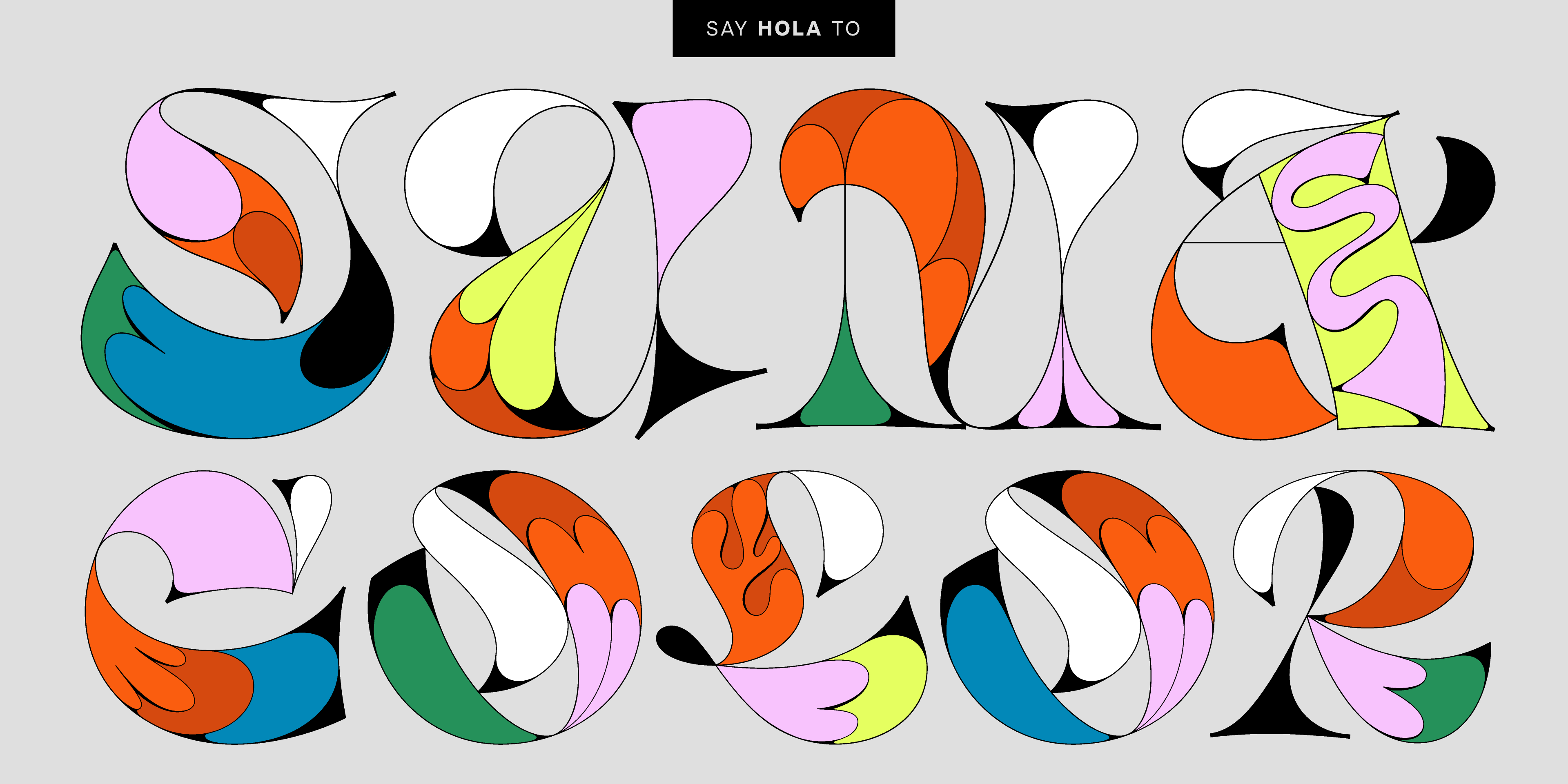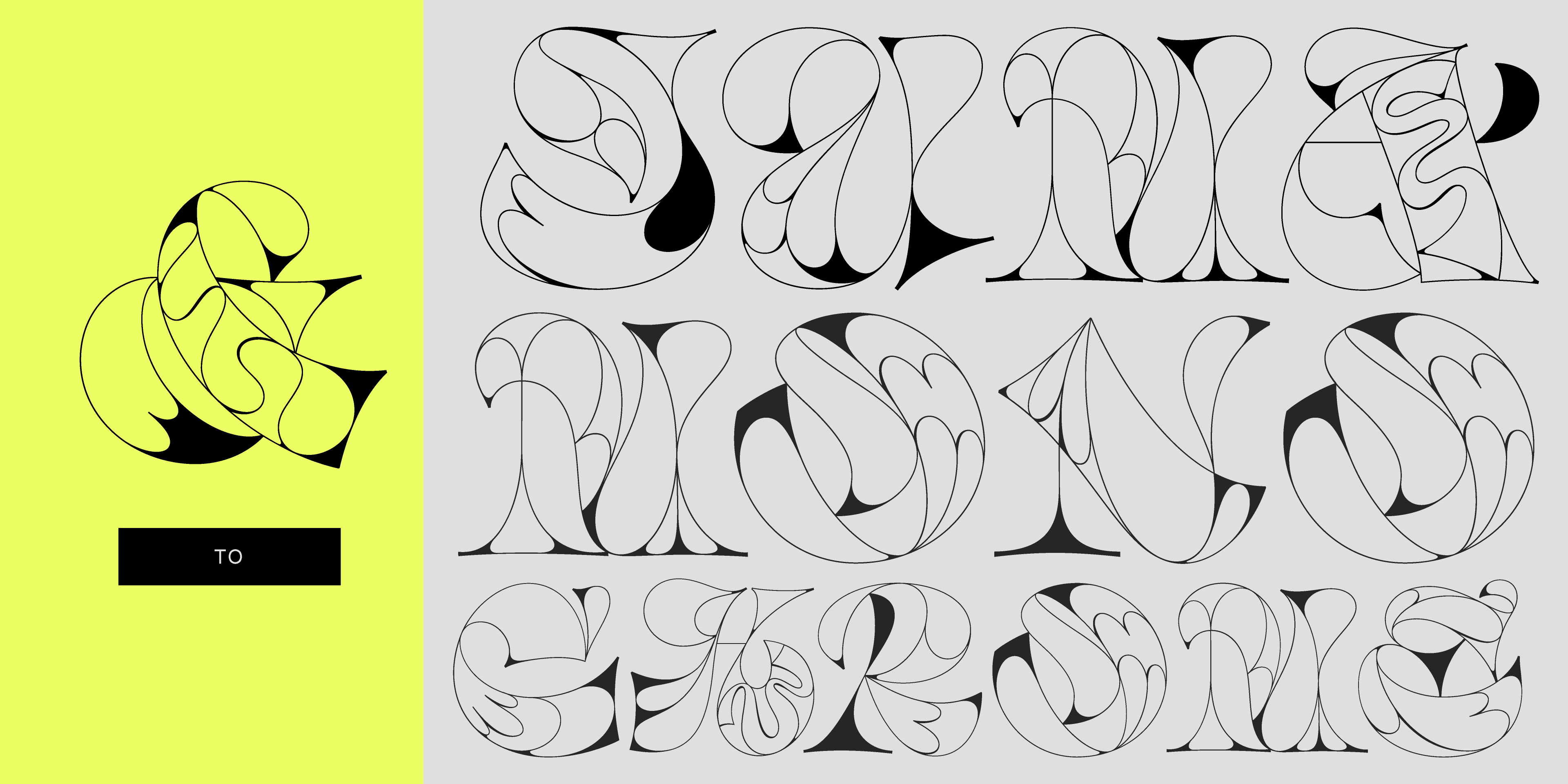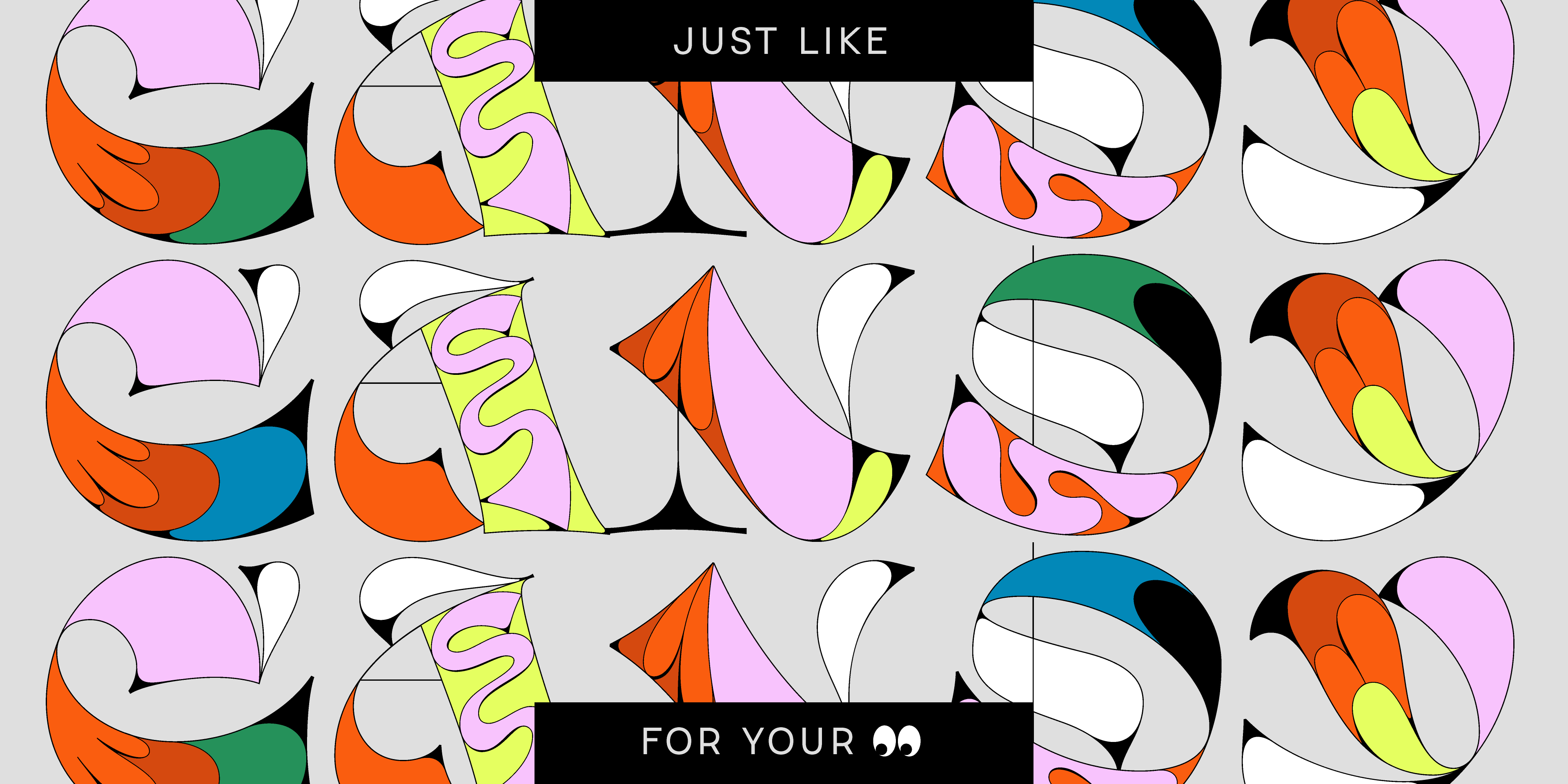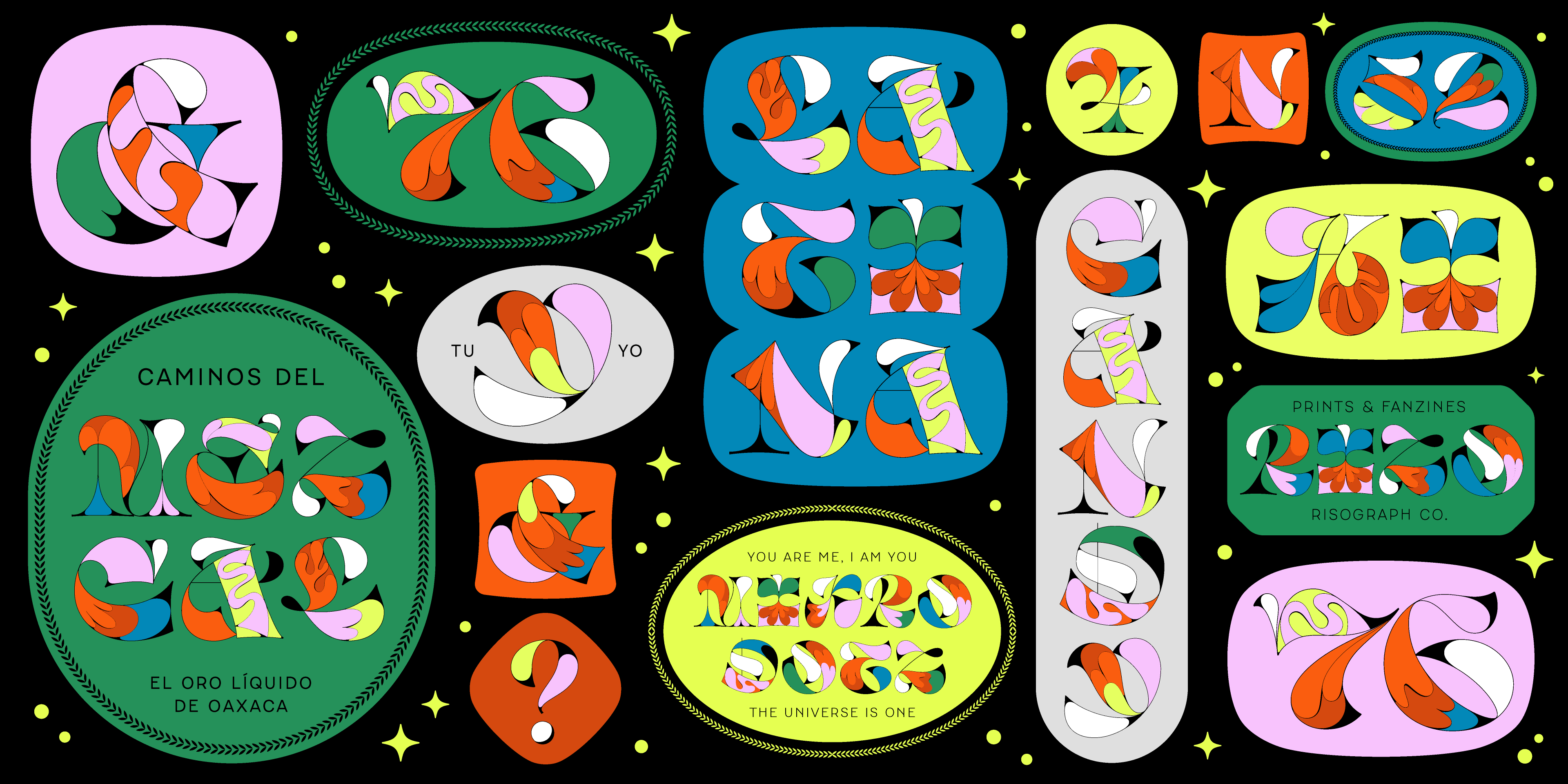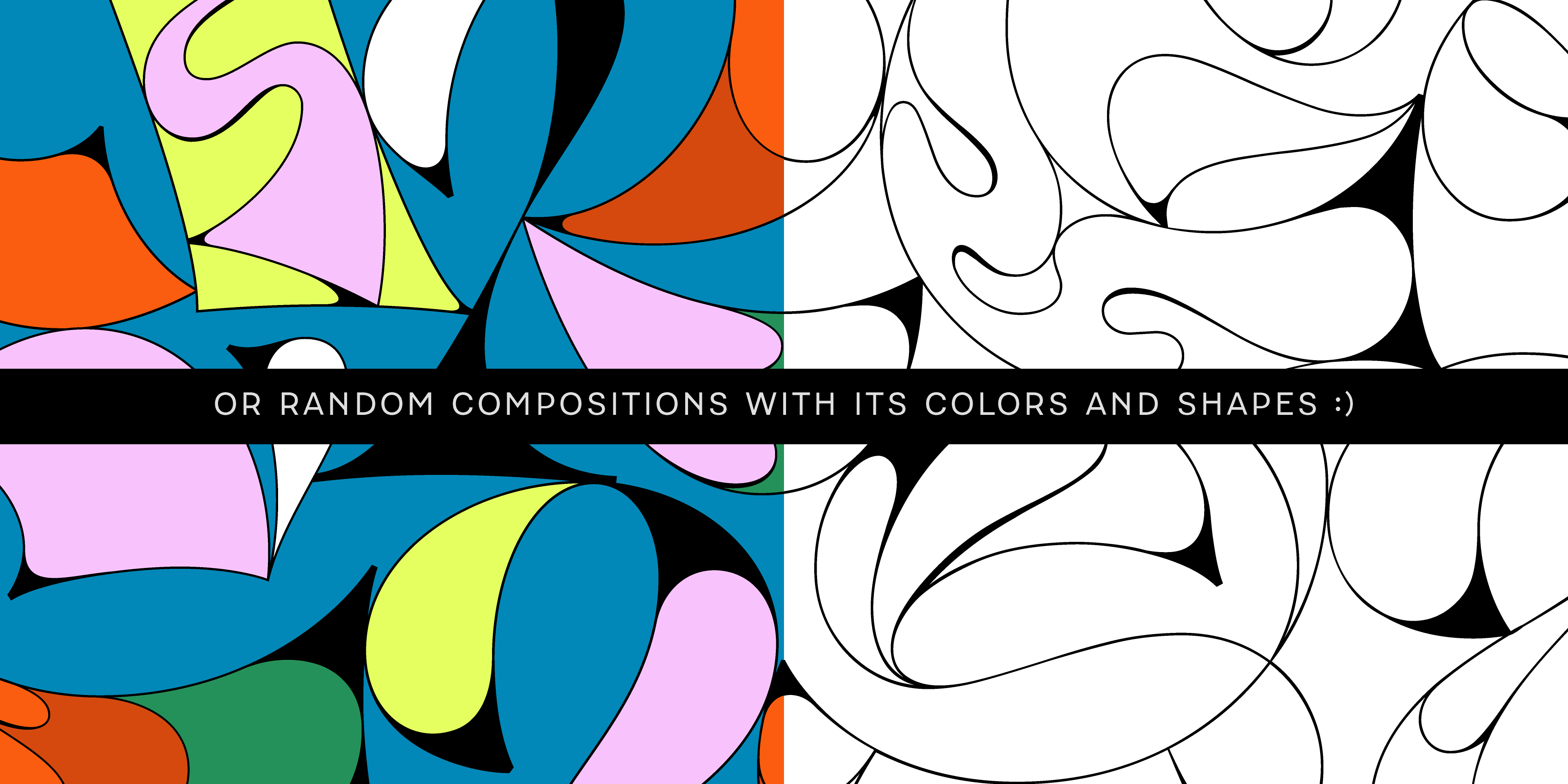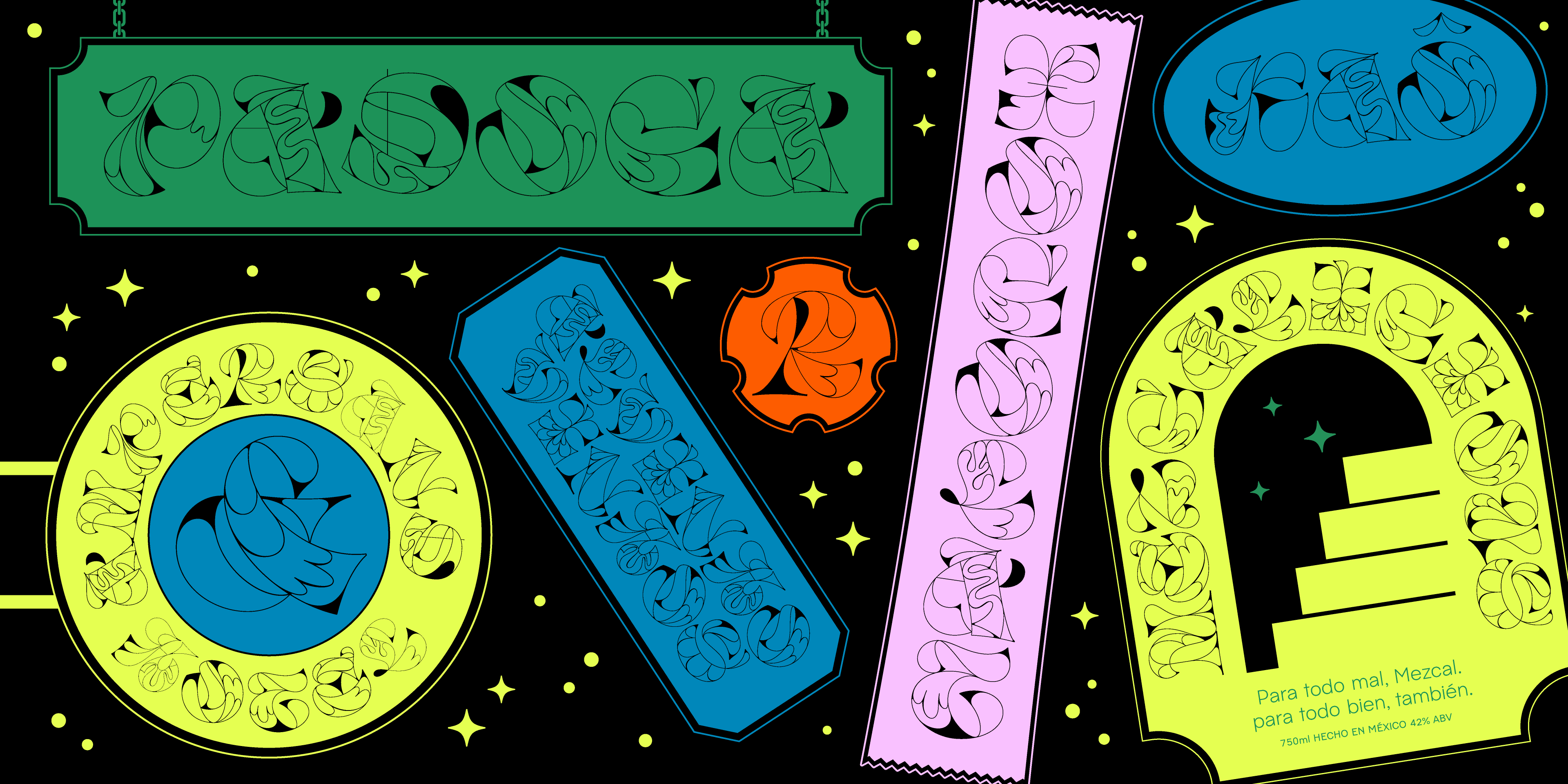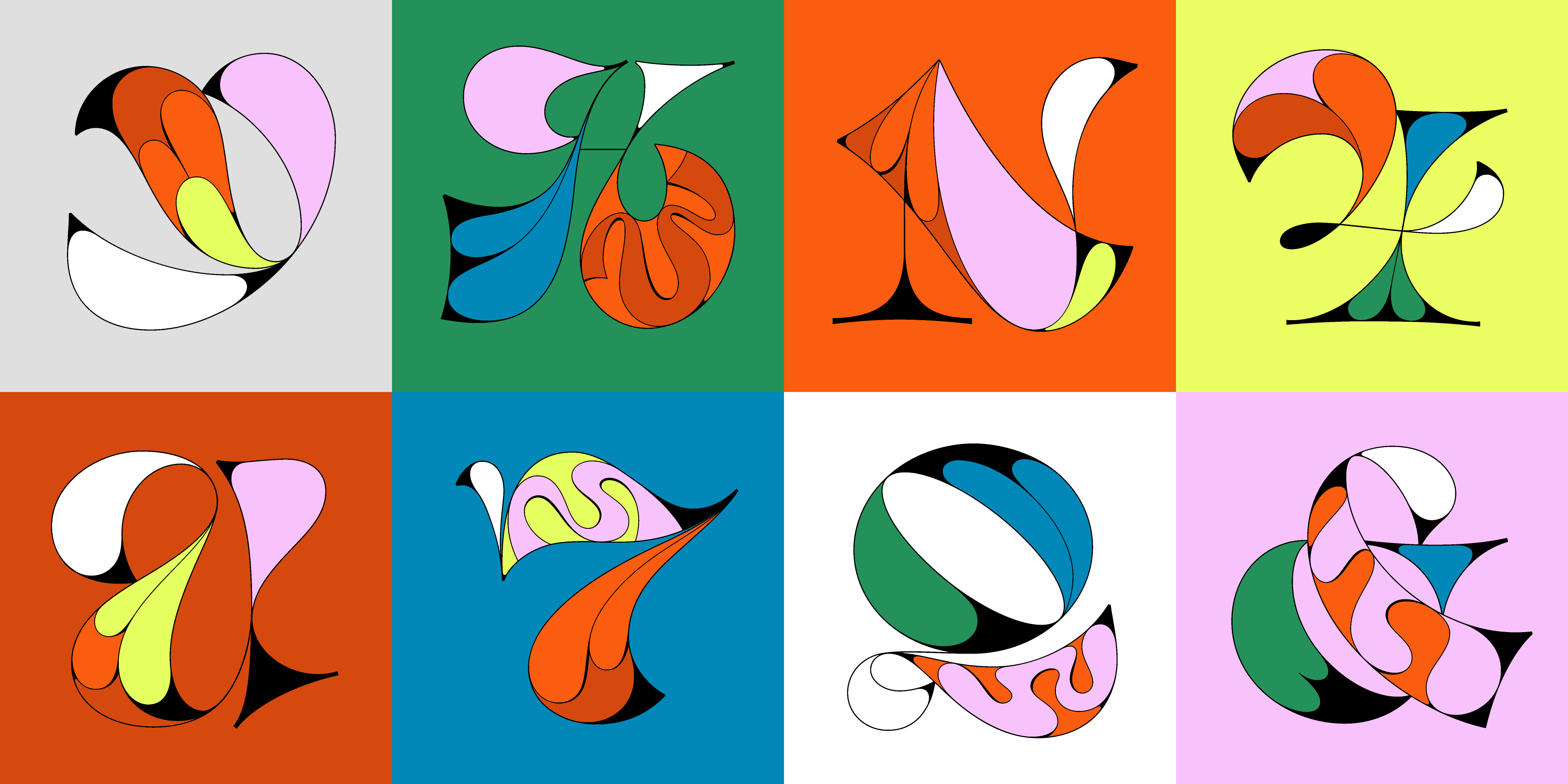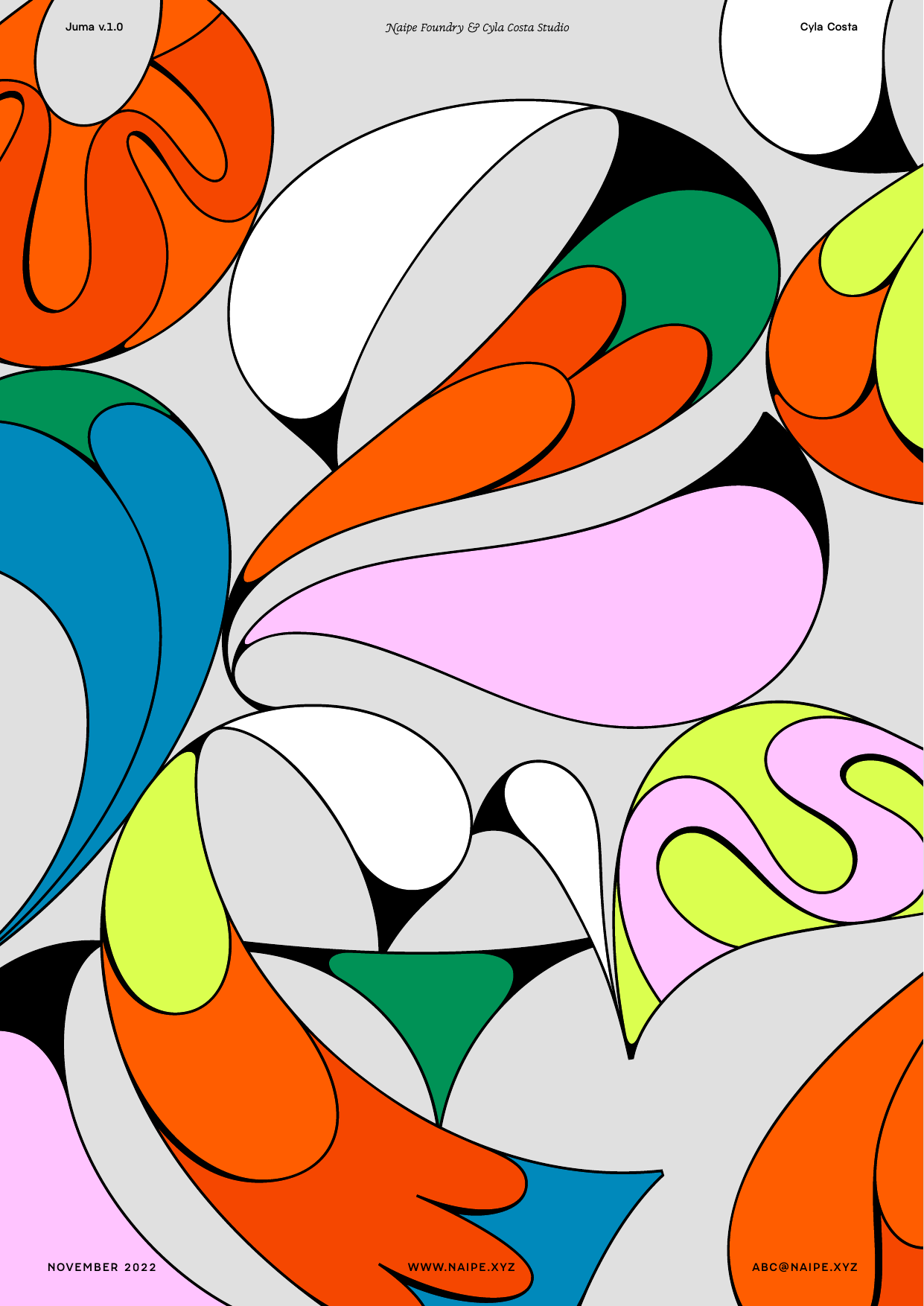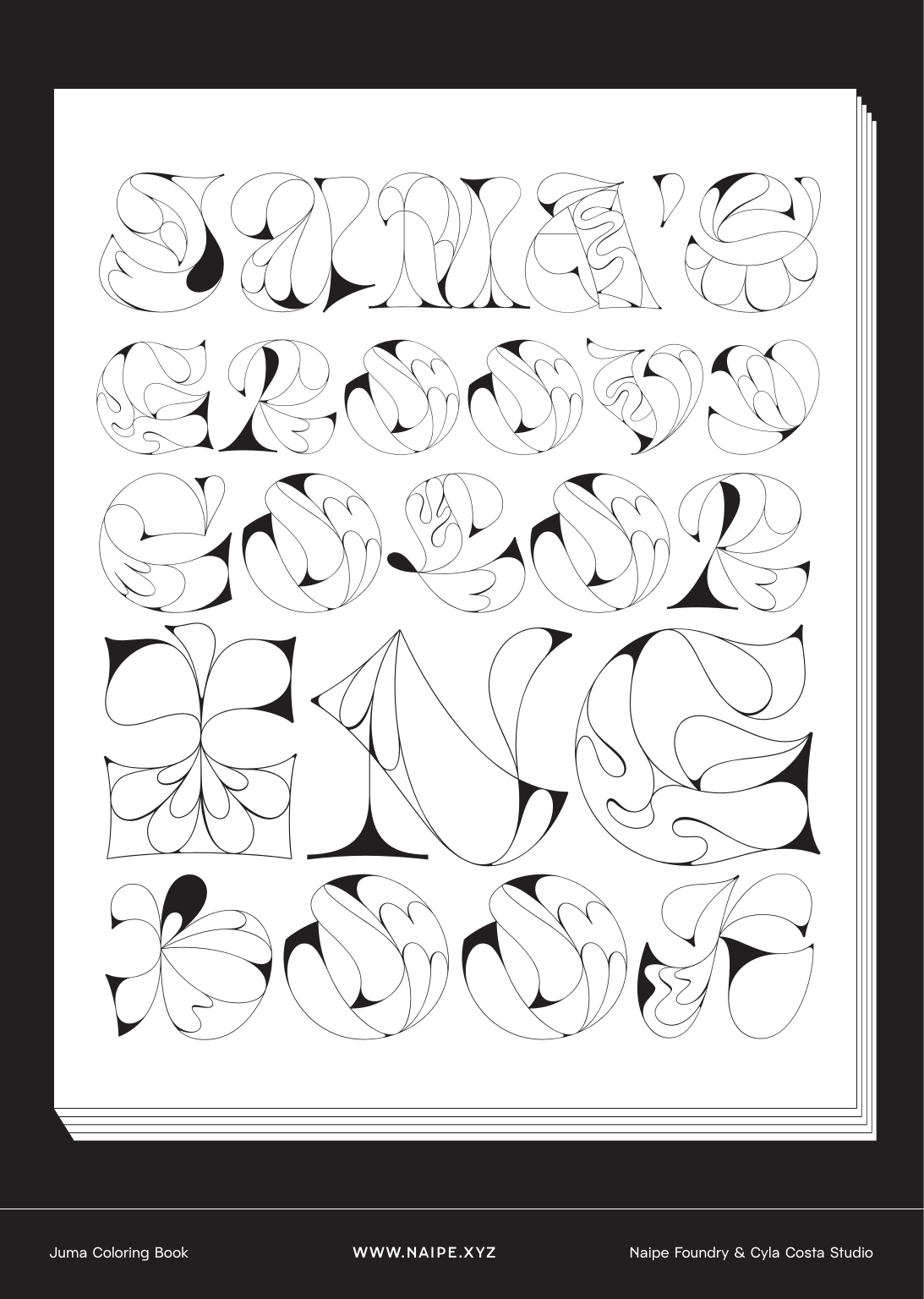
Juma
Juma is a super display color font made to be used HUGE. Created by brazilian lettering artist extraordinaire Cyla Costa, Juma is a deep exploration of shapes and served as the path to push the boundaries of her work's visual language.
The shapes and colors of Juma remind us of natural beauties like tropical birds or a slab of marble, its twists and turns almost hypnotic. On the page, Juma can work as a beautifully decorated drop cap, a striking headline, or even in abstract compositions like patterns, but outside the page into the physical world, each individual letter has a sculptural quality to it that invites us to imagine it as an object.
Juma is playful, daring, and powerful and we're thrilled to have it in Naipe Foundry's library.